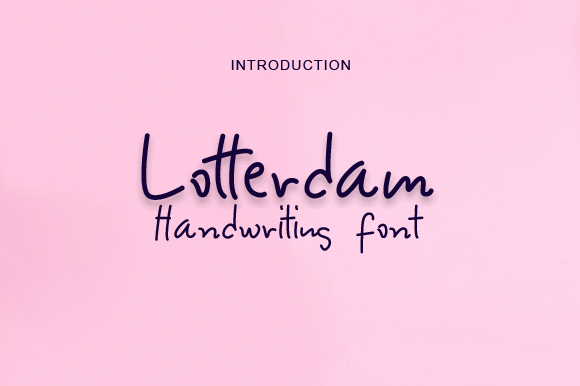
Font name: | Lotterdam |
Author: | Hermawan |
Note by Hermawan | |
Lotterdam is a unique script font that will easily give your designs a delicate and romantic impression. It�s suitable for logos, quotes, advertisements, watermarks, and product designs. Full Version with License Available : https://www.creativefabrica.com/product/lotterdam/ |